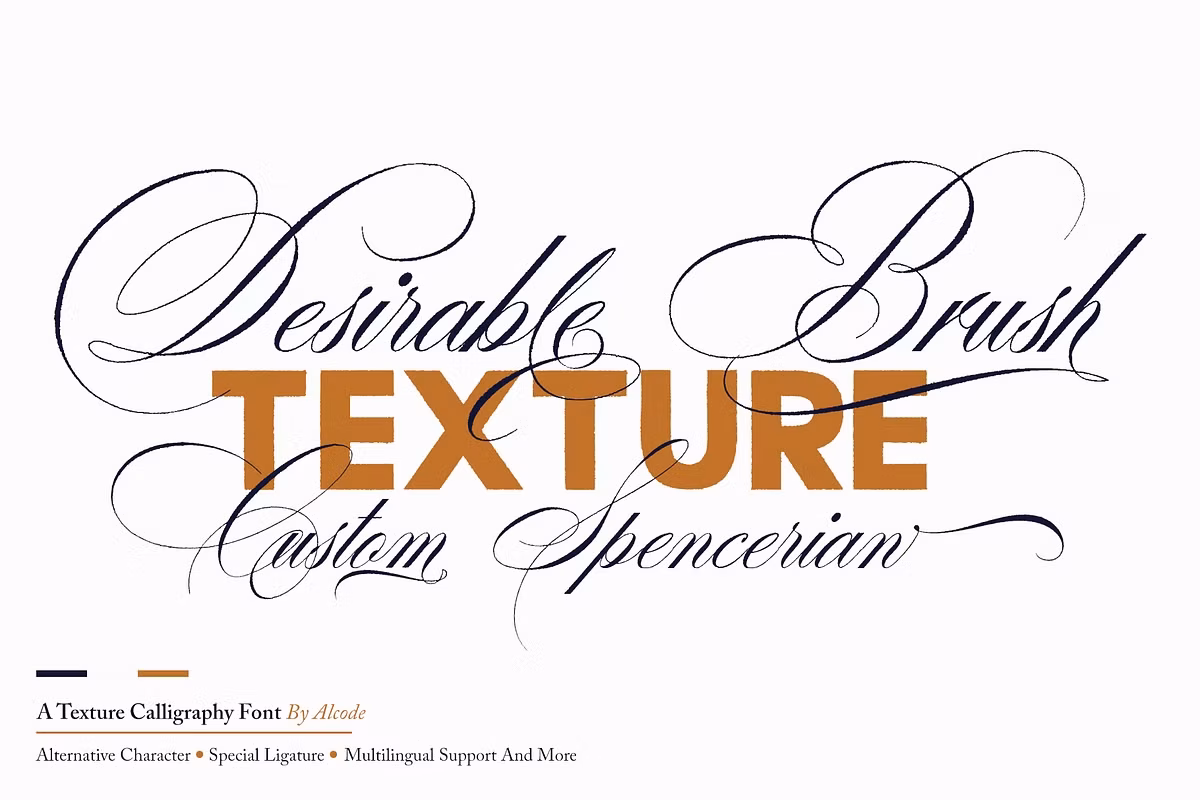
Desirable Brush Texture Font Free Download is a dynamic and expressive typeface that mimics the bold and natural strokes of a brush. With its textured brush effect, this font adds an artistic and handcrafted feel to any design project. Perfect for creative branding, posters, social media graphics, greeting cards, and more, Desirable Brush Texture brings personality and energy to your typography.
The texture in the font gives it an organic, slightly imperfect look, making it ideal for designs that need a raw, authentic aesthetic. Whether you're working on a handmade logo, a vibrant poster, or any artistic project, this font adds an extra layer of depth and creativity.